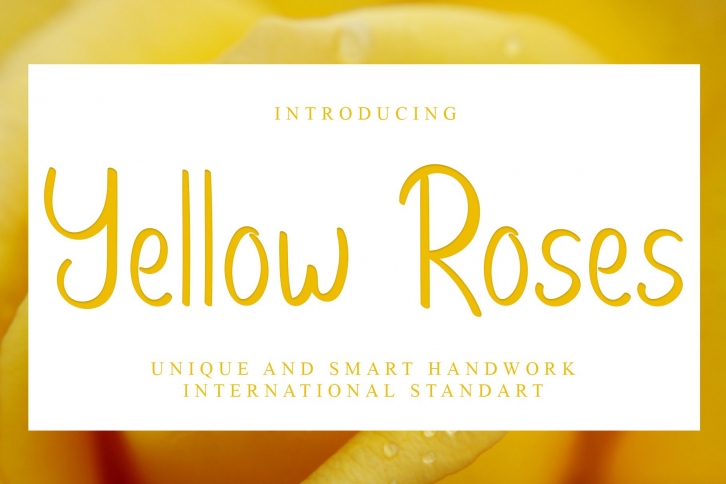
Yellow Roses is a beautiful font that was designed by Giart Studios. It's a great choice for designers and creatives who need such a font. It was released on February 13, 2022 and the file size is 19.44 MB. Yellow Roses may give a more youthful, expressive and casual look to your project. It is a very beautiful, refined, elegant, and high-quality font.